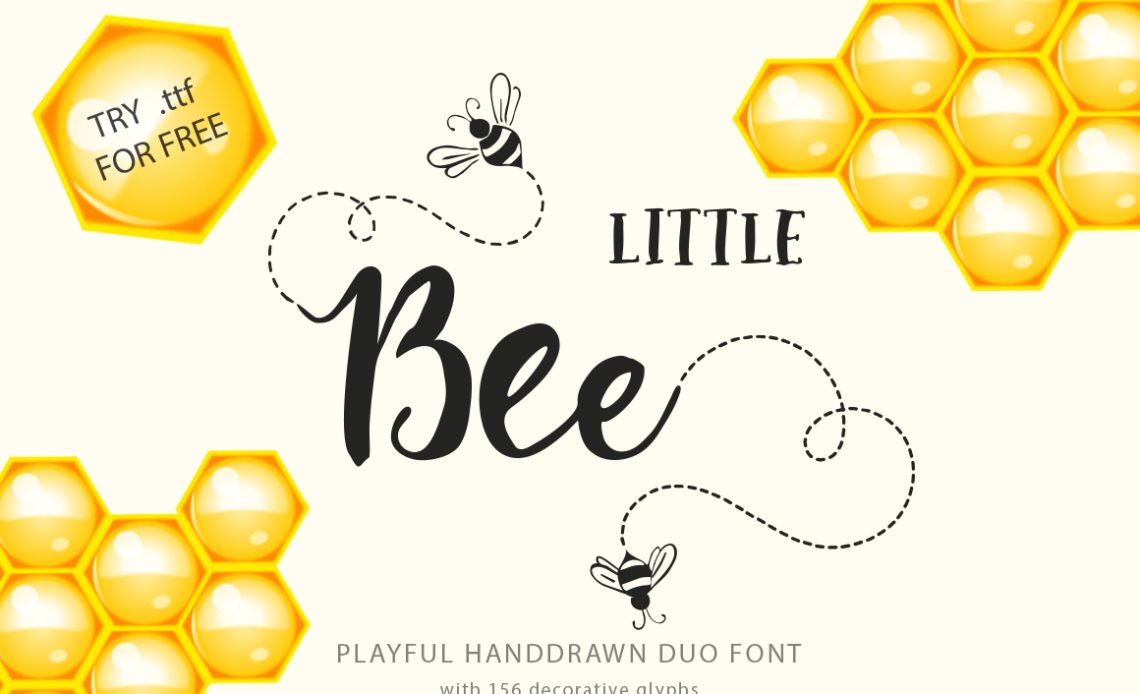
Welcome to the world of Little Bee Duo Font! This exquisite script font family created by Red Ink is a must-have for anyone who loves to play around with typography.
Little Bee is not your ordinary font. It's an adorable and embellished font set, designed to add a touch of whimsy to any project. With its smooth and flowing strokes, this font exudes an irresistible charm that captures the heart of anyone who lays their eyes on it.
This script font family offers endless possibilities for typographic combinations. Its versatility allows it to be used for a wide range of design projects, including wedding invitations, logos, branding, and so much more. With Little Bee, you'll never run out of creative ideas to enhance your designs.
But that's not all, Little Bee is also equipped with thematic elements, making it an ideal font choice for themed events, such as birthdays, holidays, and other special occasions. Its playful nature adds a touch of fun and excitement to any design.